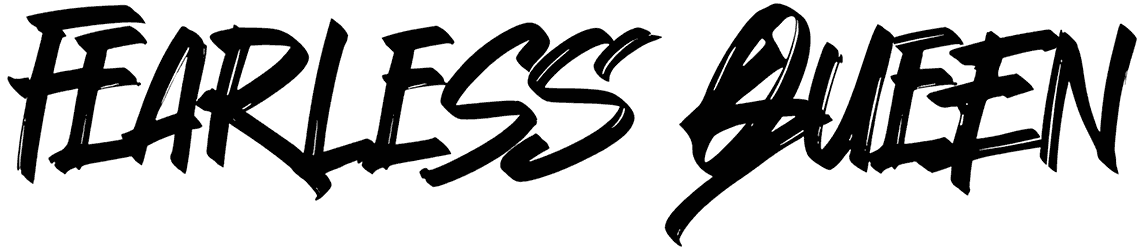
Fearless Queen Font
Are you trying to find an attractive look for your next modern design? As an 80s brush font, Fearless Queen, with its cool and urban face, could be an ideal choice. There is no support for lowercase letters and some numbers, but this script font could continue to be a catchy choice for a lot of items like banners, postcards, invitations, and whatnot.